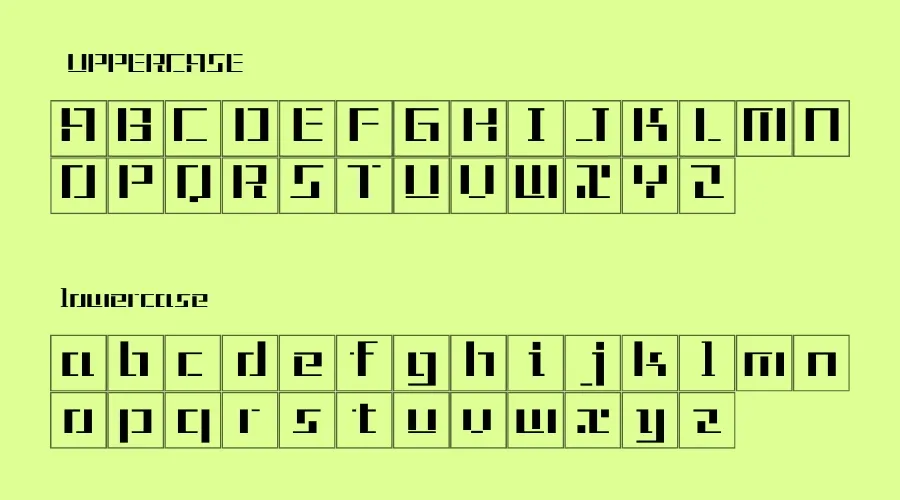
Tetris Font
About Tetris Font
Tetris Font is the creation of Timothy Gao it is a techno text style. Along with numerals and characters, this font has lowercase and uppercase characters. The texture and clarity of this style are fantastic.
This typeface is a great option if you are searching for a classy and fashionable style for your next project. This font design may also be used to pair with other fonts to enhance the beauty of your project’s layout.
You can design with this style book covers and banners, and more. The typeface is ideal for headlines on your website as well as blogs. A large number of businesses are using this typeface in their designs.
This font type is mostly utilized for company logos, T-shirt designs, business and greeting card designs, posters, marketing projects, advertising campaigns, booklet layouts, social media postings, and many more uses.
Name Tetris Font
Designer Timothy Gao
Style Techno
• Tetris Regular
Where I can use Tetris Typeface?
This font type is mostly utilized for company logos, T-shirt designs, business and greeting card designs, posters, and marketing projects.
Who designed Tetris typeface?
Tetris Font is the creation of Timothy Gao it is a techno text style.